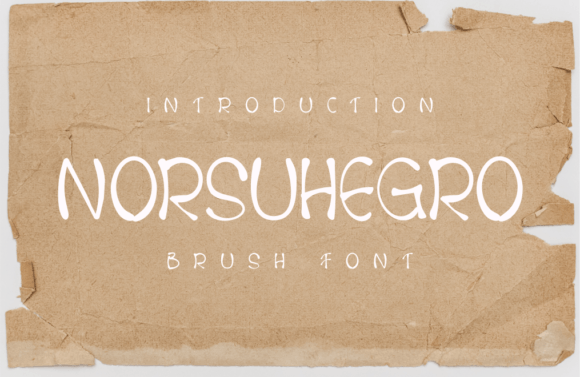
Journey into the world of Norsuhegro, a display font that's anything but ordinary. Prepare to be captivated by its unconventional charm, where every letter dances to its own rhythm. Norsuhegro is a brush-type display font that breaks free from the boundaries of convention, embracing irregularity and uniqueness. It's a font that speaks to those who dare to stand out, who embrace the quirks of life and find beauty in the unexpected.
With Norsuhegro, your designs will exude a raw and edgy appeal. Its irregular strokes and unpredictable nature add a touch of intrigue and personality to any project. Whether you're crafting logos, posters, social media graphics, or eye-catching headlines, Norsuhegro will leave an unforgettable impression.
But Norsuhegro isn't just about aesthetics; it's also incredibly versatile. Its carefully crafted characters lend themselves to a wide range of design applications. Imagine using Norsuhegro to create invitations with a touch of whimsy, packaging that demands attention, or even merchandise that reflects your brand's individuality. The possibilities are endless.
Take your designs to new heights with Norsuhegro, the display font that embodies the spirit of individuality and creativity. Its unconventional style will add a spark of intrigue to your projects, allowing you to communicate your message with impact and authenticity. Embrace the beauty of the unexpected and let Norsuhegro take your designs on an extraordinary journey.
Unleash your creativity and let Norsuhegro be your guide. Step into a world where the ordinary becomes extraordinary, and where your designs will shine with a captivating presence. Norsuhegro is the key to unlocking a world of boundless possibilities, waiting to be explored by those who dare to embrace the unconventional.